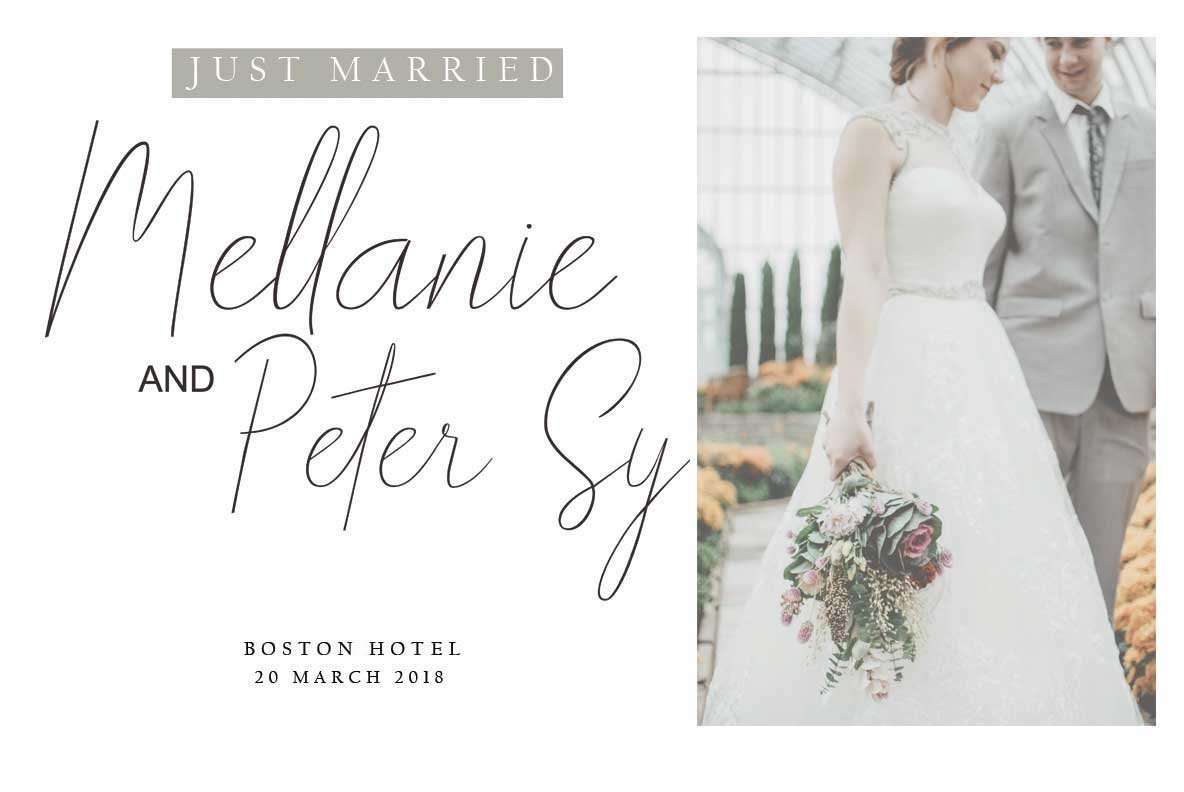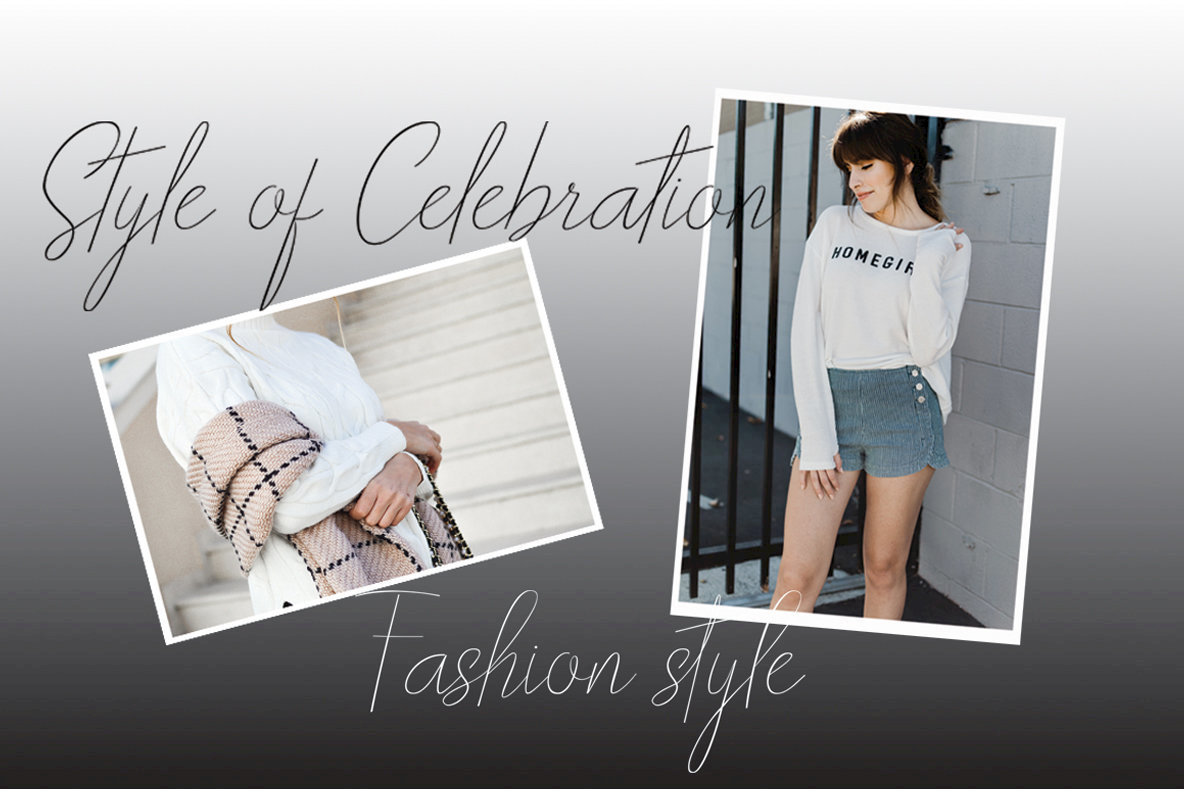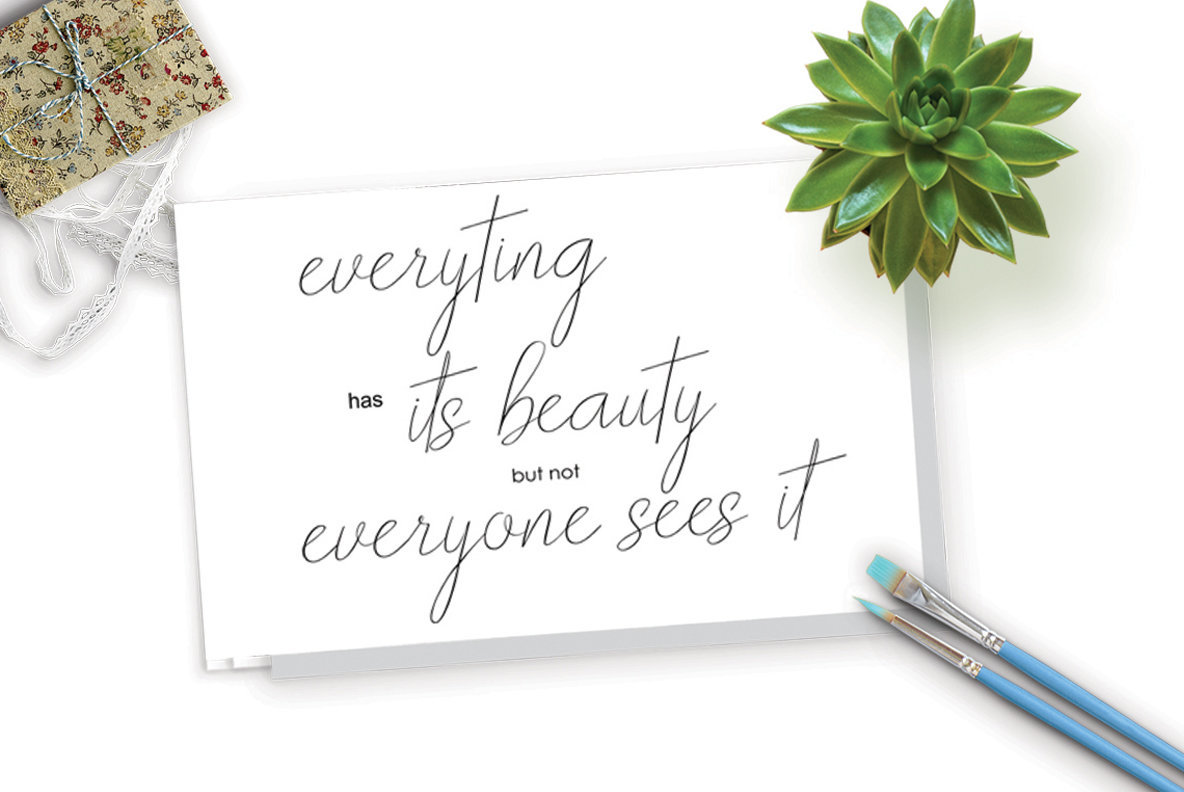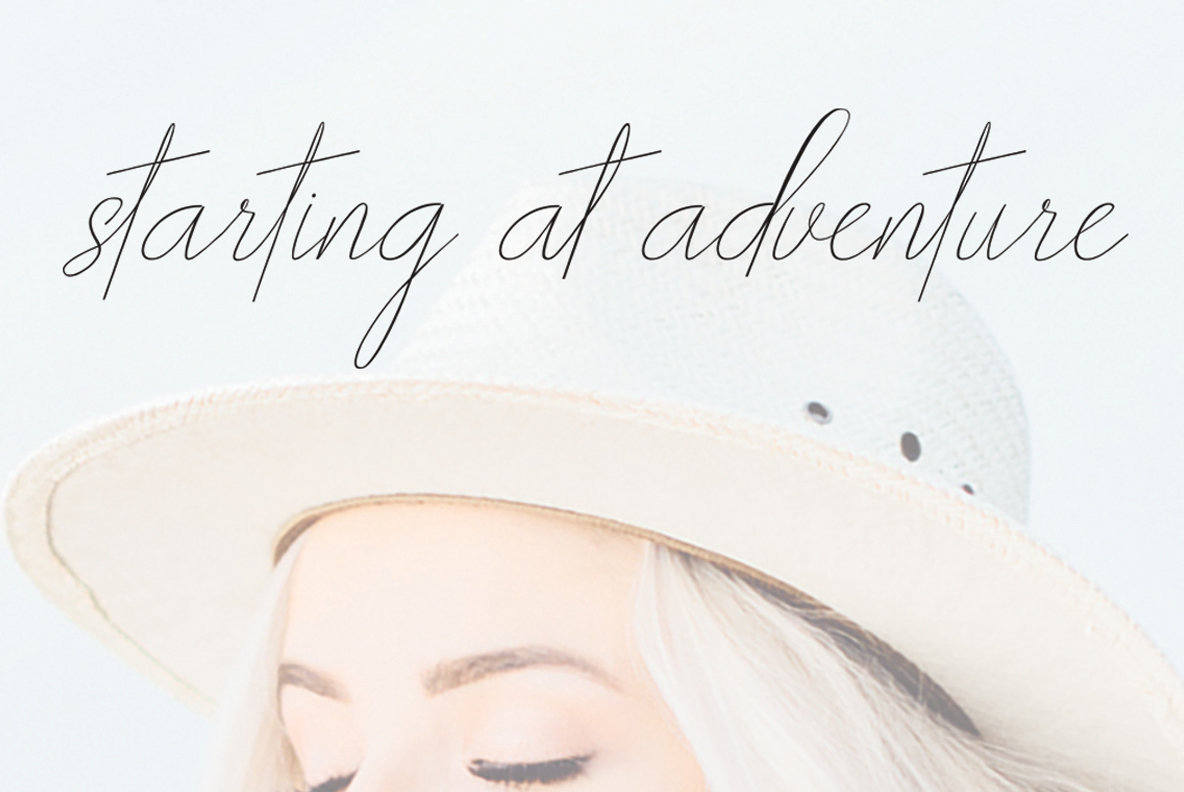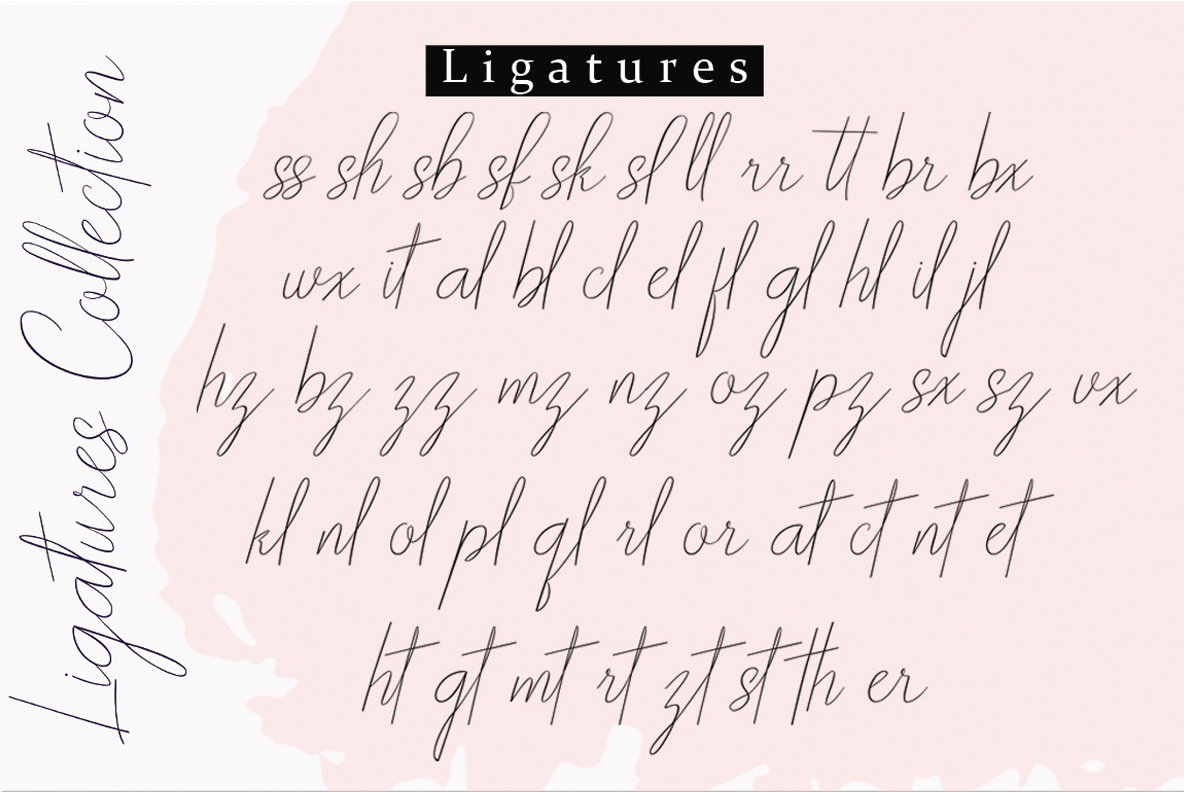
Over the Sunday Font
Over the Sunday is signature style font with stunning characters, including Regular and Slant. This font is casual and pretty with swashes. Can used for various purposes, such as logo, product packaging, wedding invitations, branding, headlines, signage, labels, signature, book covers, posters, quotes and more.